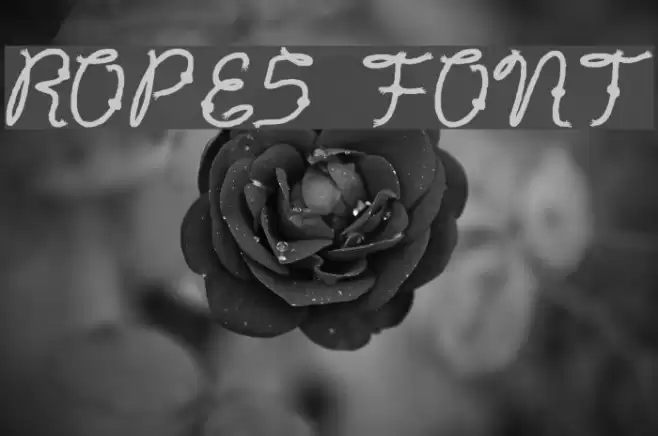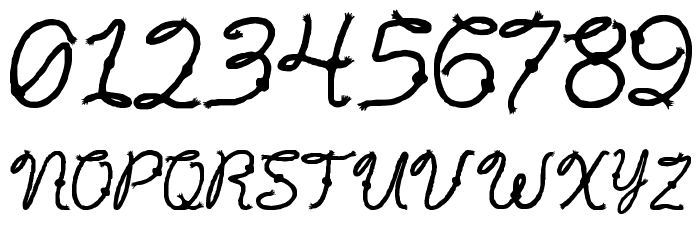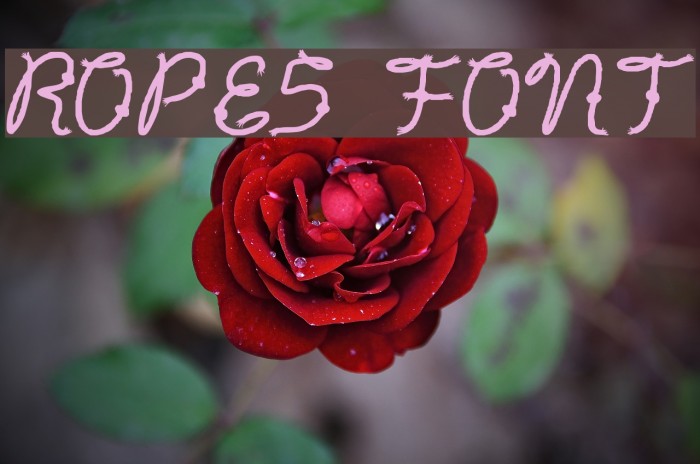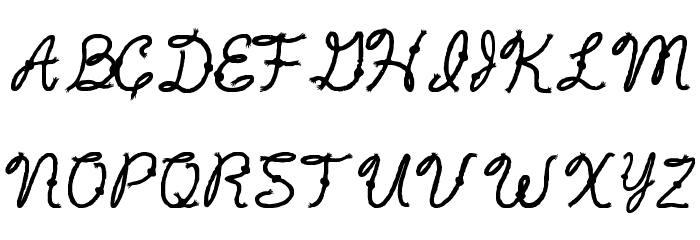
Rope5 Font
Rope5 Description
This font features a unique and playful design that mimics the appearance of rope. Each character is intricately crafted to resemble twisted strands, giving it a textured and dynamic look. The letters have a consistent flow, maintaining readability while adding a decorative flair. The uppercase and lowercase letters are distinct yet harmonious, and the numbers follow the same thematic style. Special characters are included, enhancing its versatility. This font is ideal for projects that require a touch of creativity and whimsy, such as event invitations, posters, or branding materials.
A playful, rope-themed decorative font with a textured, dynamic appearance from Uncategorized fonts.
- Proposed Projects: Event invitations, posters, branding materials, creative projects.